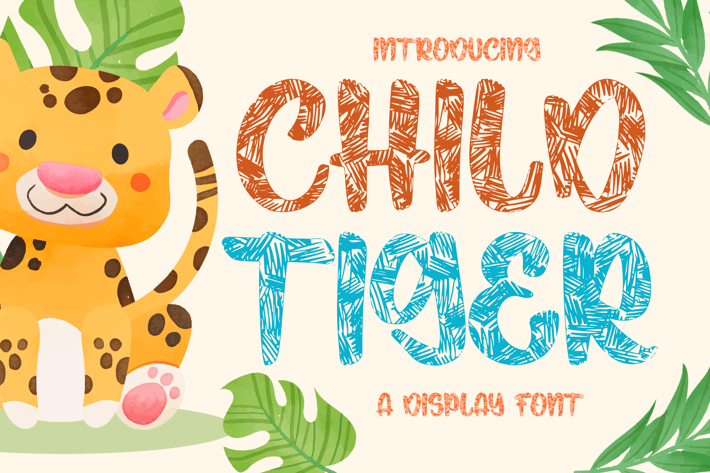
Child Tiger Marker Display Font
Child Tiger Marker Display Font is a distinct, highly detailed. Marker Display Font.
It would make a great choice for exquisite retro-urban designs, business branding, logos, Apparel designs, and more.